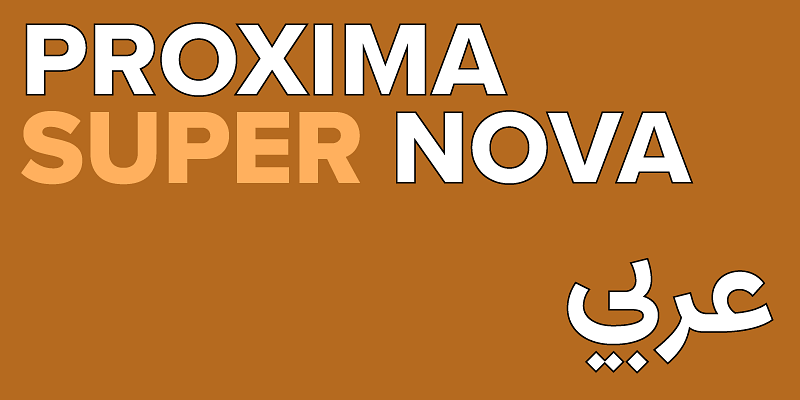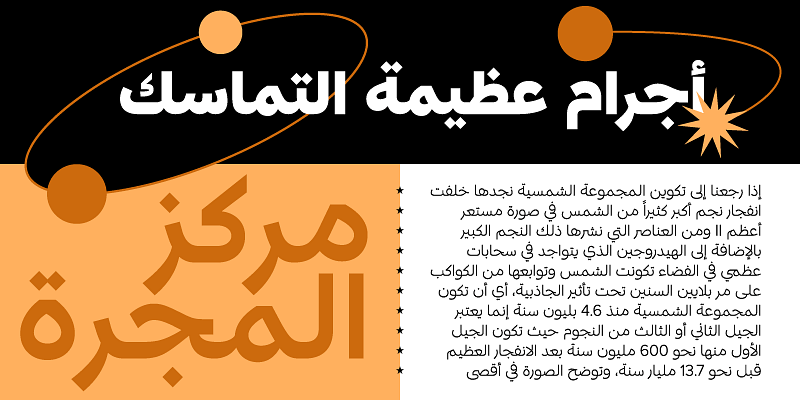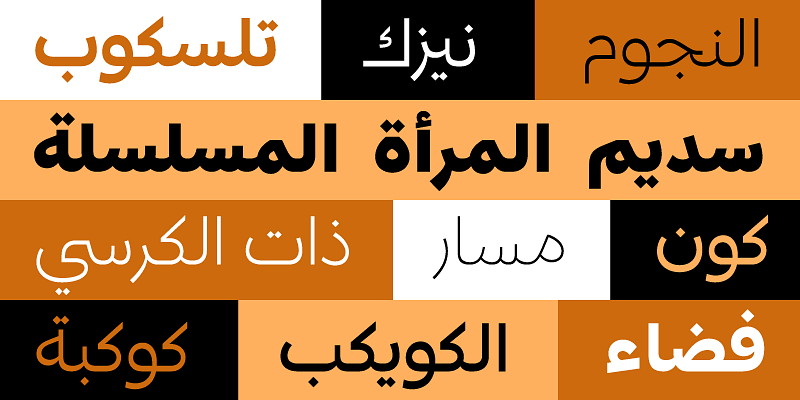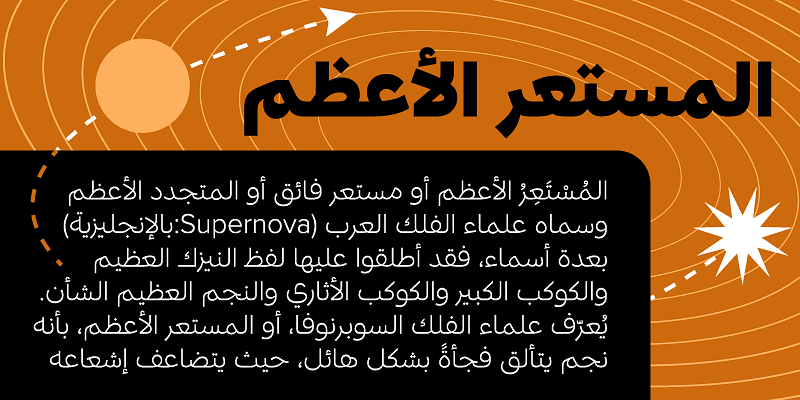
Proxima Nova Arabic (2024) was designed by Khajag Apelian and Wael Morcos to complement Mark Simonson’s ever-popular Proxima Nova. Using a sculptural approach, a balance was reached between the calligraphic and geometric, giving graphic designers and typographers an Arabic script with the look and utility of a modern sans serif excellent for print and screen use. Available in eight weights — from Thin to Black — this growing family of typefaces is set to become even more popular worldwide.